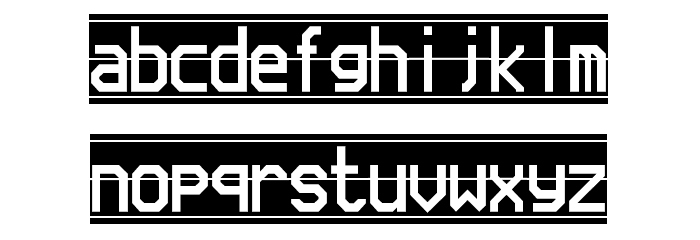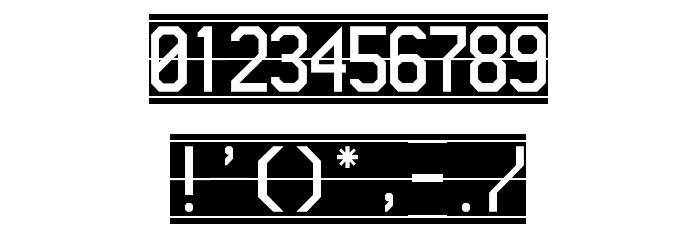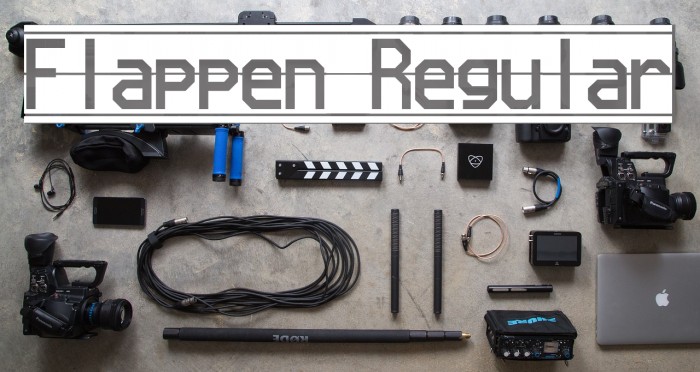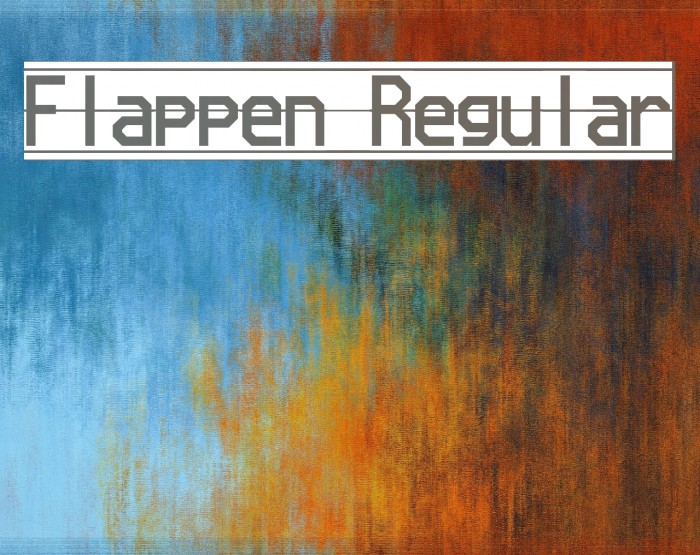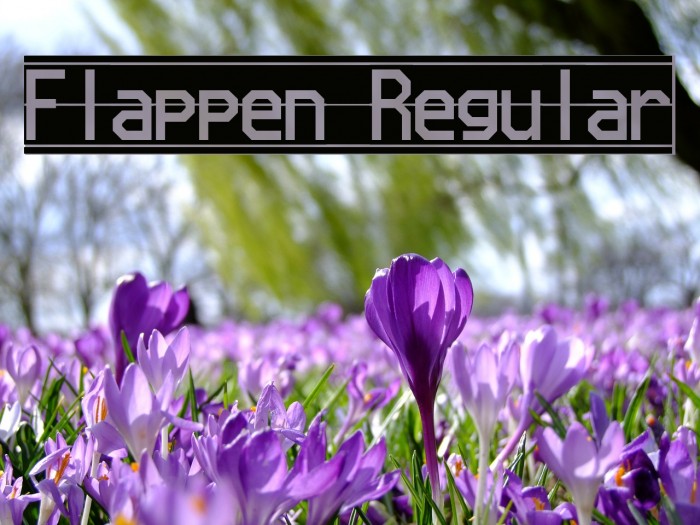
Flappen Regular Font
This font features a unique, geometric design with a futuristic flair. The characters are constructed with angular lines and sharp edges, creating a distinct and modern appearance. The uppercase and lowercase letters maintain a consistent style, with a uniform height and width that contributes to a cohesive look. The numerals and special characters follow the same design principles, ensuring a harmonious overall aesthetic. The font's structure is clean and precise, making it suitable for projects that require a contemporary and innovative touch.
A geometric, futuristic font with angular lines and sharp edges.
- Proposed Projects: Ideal for technology branding, sci-fi themed designs, modern posters, and digital interfaces.